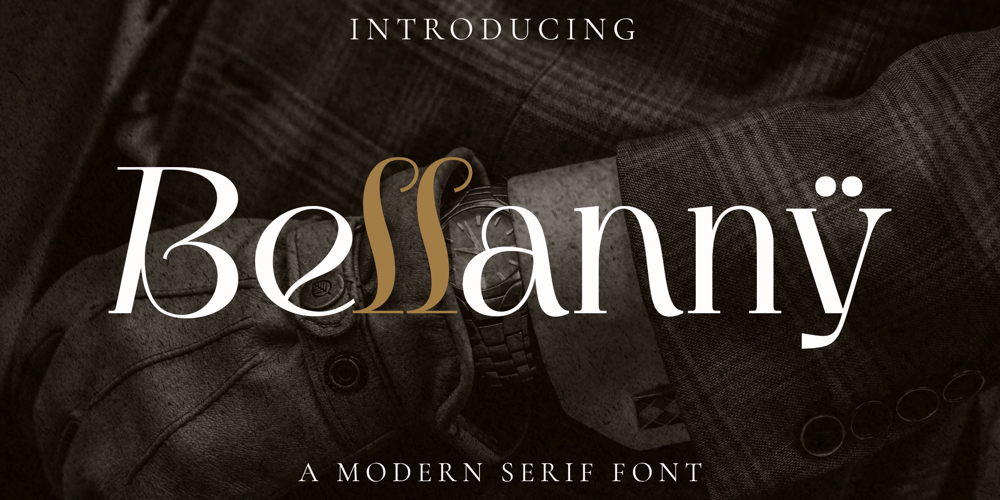
Bellanny Font Family was designed by Heri Imanudin and published by Krafted. Bellanny contains 1 styles and family package options. Looking for a stylish serif font to spice up your book, magazine, or newspaper?Introducing Bellanny – A Modern Serif Font.A perfect blend of elegance and style with just the right touch of creativity, Bellanny looks great on both web and print. Give it a go and see how a great font reshapes your work.What you’ll get: Multilingual & Ligature Support Full sets of Punctuation and Numerals Compatible with: Adobe Suite Microsoft Office Keynote Pages Software Requirements: The fonts that you’ll receive in the pack are widely supported by most software. In order to get the full functionality of the selection of standard ligatures (custom-created letters) in the script font, any software that can read OpenType fonts will work. We hope you enjoy this font and that it makes your branding sparkle! Feel free to reach out to us if you’d like more information or if you have any concerns.